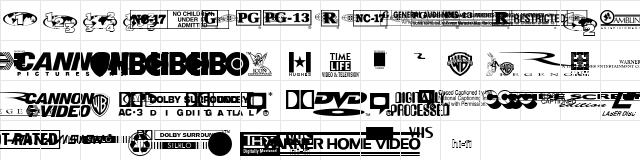
WHV Regular
Design Context for WHV
WHV is a composed and adaptable typeface that performs quietly and consistently across a wide range of design contexts.